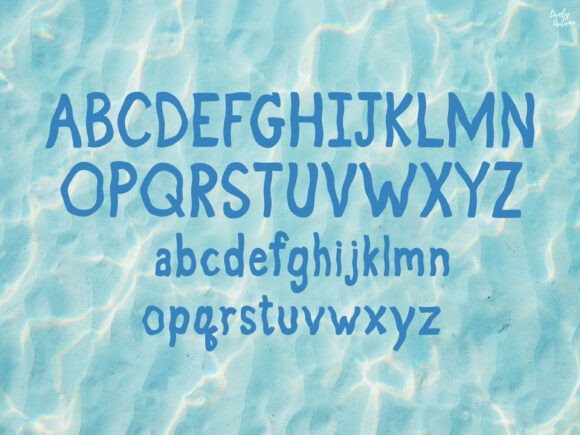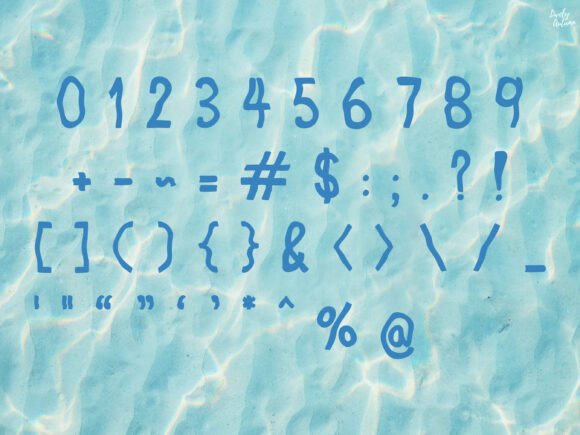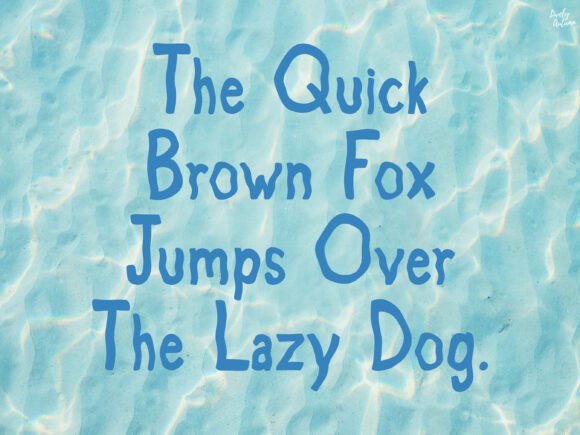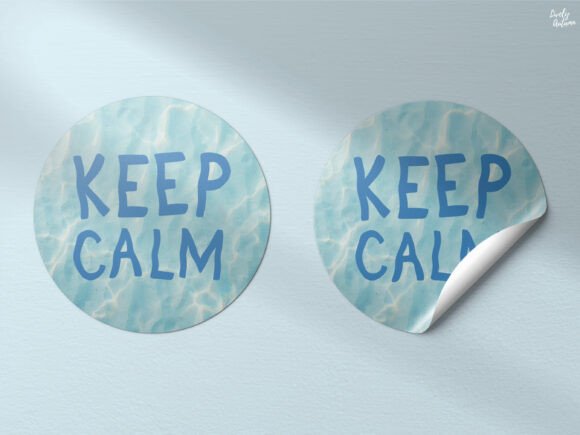
Aqua Font: A Wavy and Underwater-Inspired Typeface for Creative Projects
Are you looking for a unique and captivating font to elevate your creative projects? Look no further than Aqua Font, a stunning wavy typeface that gives the illusion of letters being underwater. This versatile font is perfect for designers, crafters, and anyone looking to add a touch of aquatic charm to their work.
What is Aqua Font?
Aqua Font is a carefully crafted typeface that mimics the flowing, wavy motion of water. Its distinctive design makes it an excellent choice for projects that require a sense of movement and fluidity. Whether you’re working on a personal project or a professional assignment, Aqua Font is sure to make a splash.
Perfect for Various Projects
One of the best things about Aqua Font is its versatility. It’s suitable for a wide range of projects, including:
- Invitations: Create eye-catching invitations for parties, weddings, or baby showers that will leave a lasting impression on your guests.
- Posters: Design stunning posters for events, promotions, or advertisements that will grab attention and stand out from the crowd.
- Social Media Graphics: Elevate your social media presence with engaging graphics that showcase your brand’s personality and style.
- Journals: Add a touch of whimsy to your journal or diary with Aqua Font, making it a beautiful and unique keepsake.
- and much more: From business cards to packaging, Aqua Font can be used in countless creative projects.
Why Choose Aqua Font?
So, what sets Aqua Font apart from other typefaces? Here are a few reasons why designers and crafters love Aqua Font:
- Unique Design: Aqua Font’s wavy, underwater-inspired design makes it a one-of-a-kind typeface that will set your projects apart.
- Easy to Read: Despite its creative design, Aqua Font remains highly legible, making it perfect for both headings and body text.
- Highly Versatile: Aqua Font can be used in a variety of contexts, from digital designs to print materials.
- Perfect for Creative Projects: Whether you’re a designer, crafter, or DIY enthusiast, Aqua Font is an excellent choice for adding a touch of personality to your work.
Tips for Using Aqua Font
To get the most out of Aqua Font, here are a few tips to keep in mind:
- Experiment with Colors: Aqua Font looks stunning in shades of blue, green, and purple, but don’t be afraid to try other colors to match your brand or project’s aesthetic.
- Play with Size: Aqua Font can be used for both large headings and smaller body text, so experiment with different sizes to find the perfect balance.
- Combine with Other Fonts: Pair Aqua Font with other typefaces to create a unique and visually appealing design.
Aqua Font is a captivating and versatile typeface that’s perfect for designers, crafters, and anyone looking to add a touch of aquatic charm to their creative projects. With its unique wavy design, ease of readability, and high versatility, Aqua Font is an excellent choice for a wide range of applications. So why not dive in and explore the possibilities of Aqua Font?
Whether you’re working on a personal project or a professional assignment, Aqua Font is sure to make a splash. So go ahead, get creative, and let Aqua Font help you make your mark!